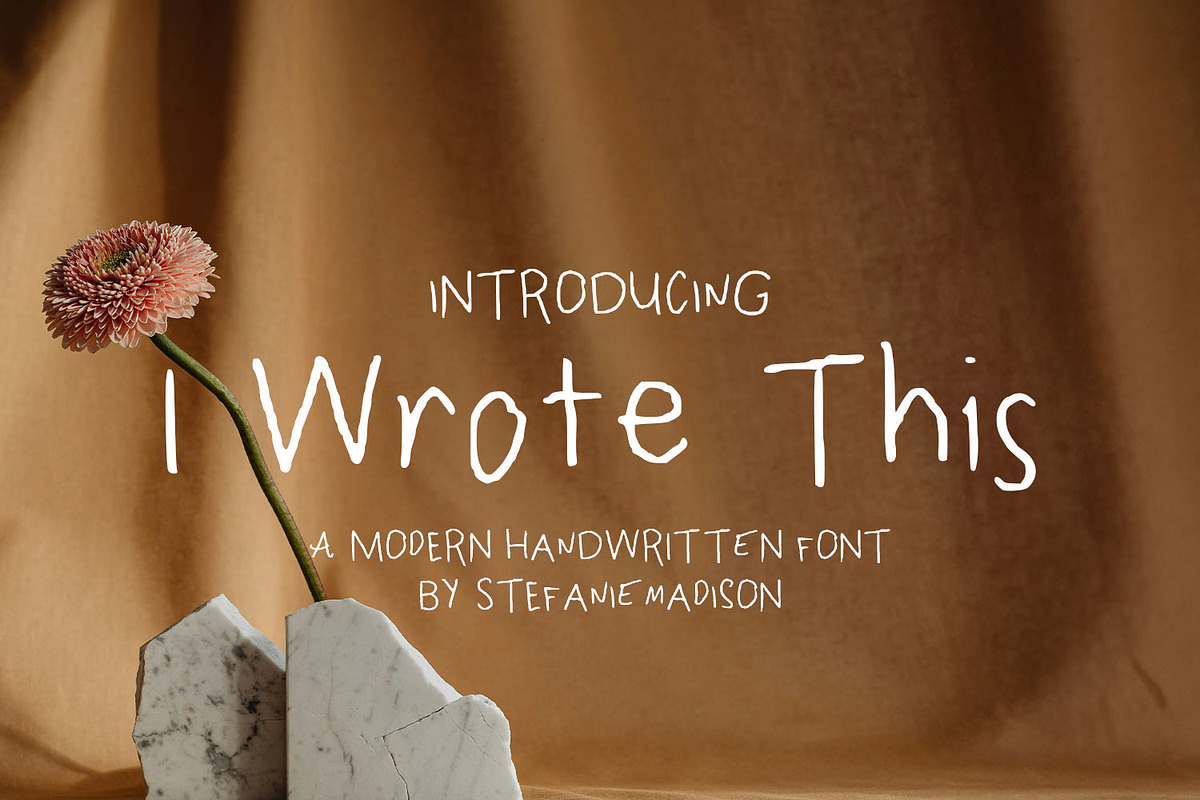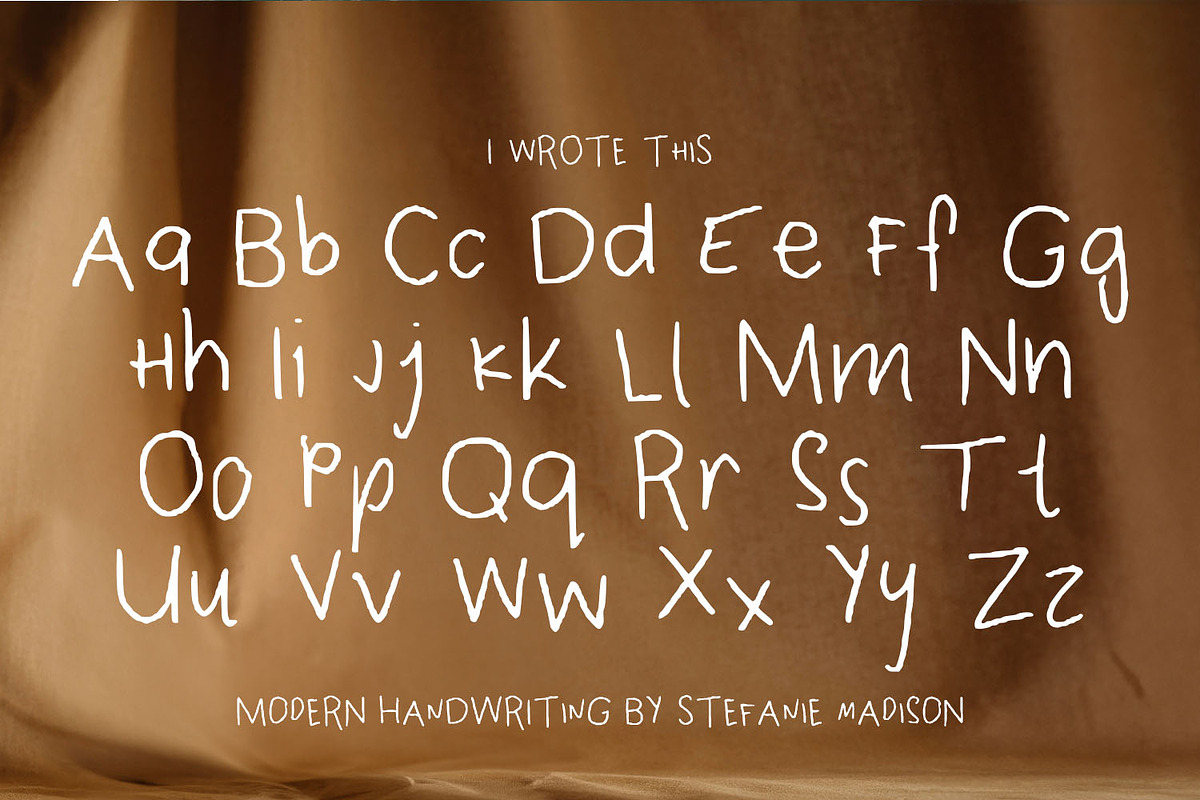
I Wrote This | Handwritten Font
Introducing "I Wrote This", a handwritten font with alternate characters and OpenType features. I was looking for a handwritten font for a project that had a childlike quality, and wasn't a fancy script... so I made it myself.
This font does not include numbers.
OPENTYPE FEATURES
If you are using OpenType-capable software like Adobe Illustrator, Photoshop, or InDesign and you have contextual alternates turned on, you can see the letters randomize themselves as you type, mixing from the default character set and the alternate style set. (You can always turn on contextual alternates after you have already typed your passage and it will randomize all at once, or you can choose to turn off contextual alternates and substitute specific glyphs yourself)